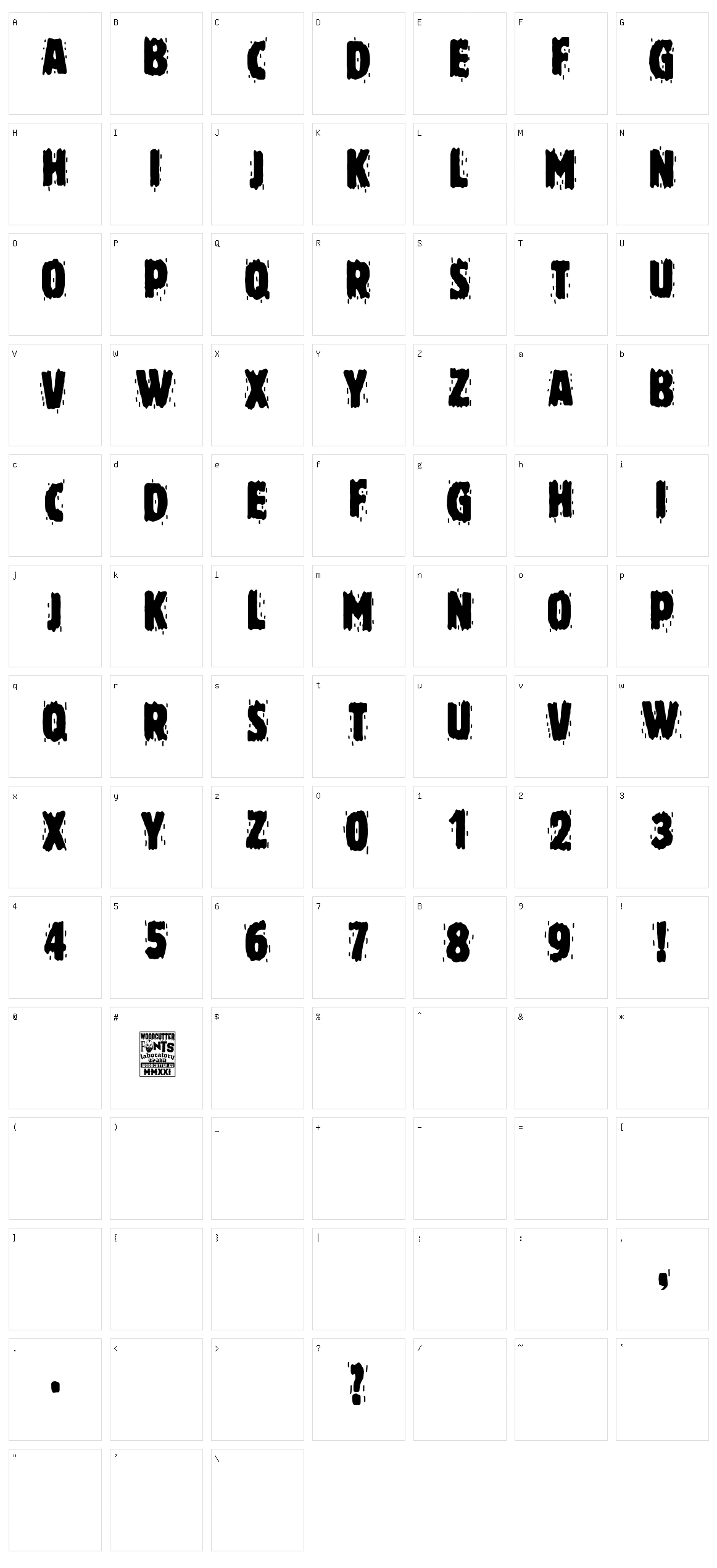
The free font Devils Syndicate is carefully designed by Woodcutter, showcasing a thoughtful balance of creativity and usability and falls under the Horror font style. When you download the ZIP file, it contains only 77.89 KB of font files, making it lightweight and quick to download. Please review the license details below to understand permitted usage and distribution rights. If license information is not available, we recommend using this font for personal projects only or contacting the author directly for commercial usage permissions.